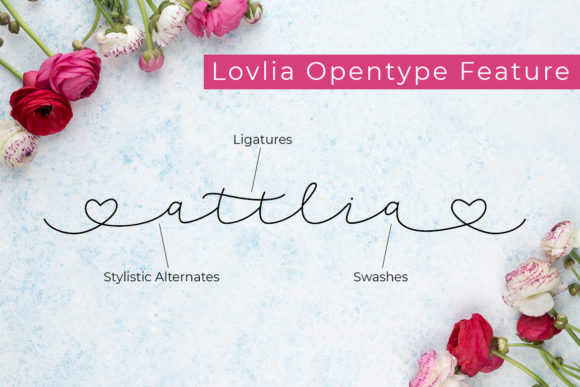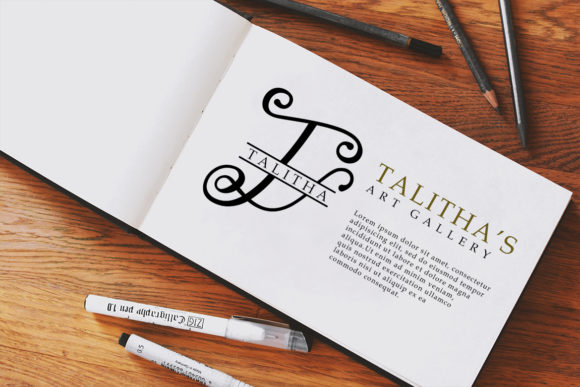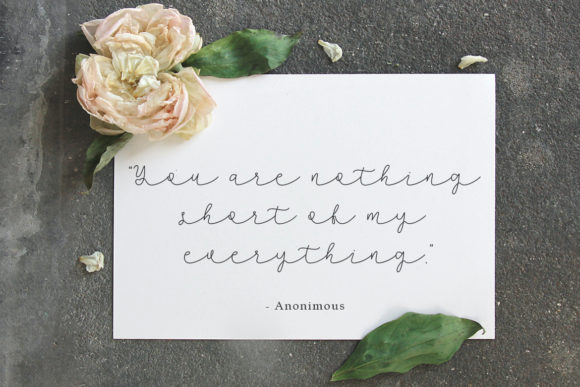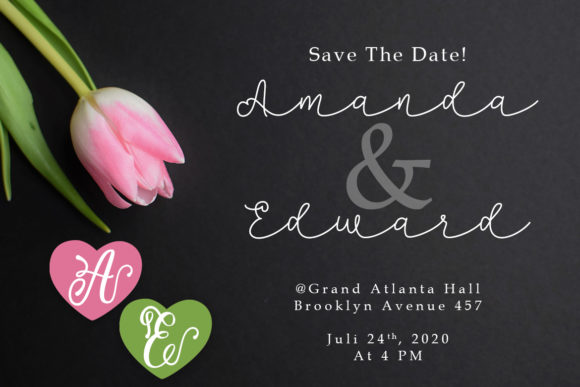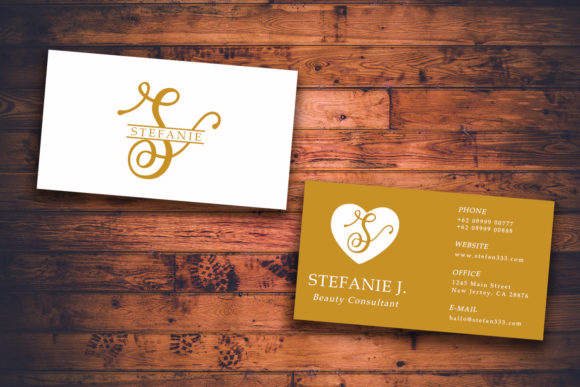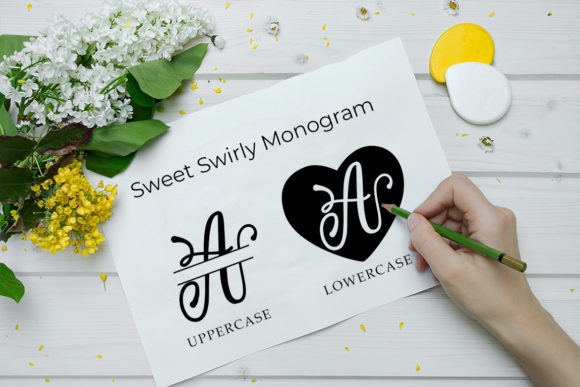
Introduction to Lovlia Font
As designers, we’ve all been there – staring at a blank canvas, waiting for inspiration to strike. It’s those moments of creative desperation that we turn to trusted design resources to spark our imagination. For me, it was the moment I stumbled upon the Lovlia Font – a stunning handwritten duo that left me breathless. The intricate swirls and elegant lines of this font duo instantly transported me to a world of high-end design, where every detail counts.
Whether you’re working on a high-profile project or a personal creative endeavor, the Lovlia Font is an invaluable addition to your design toolkit. With its luxurious feel and versatility, this font is perfect for creating eye-catching social media posts, beautiful stationery art, and gorgeous wedding invitations. And the best part? It’s available for free download, making it an accessible resource for designers of all levels.
With its transparent background and high-quality design, the Lovlia Font is an essential tool for any creative project. So, fall in love with its authentic feel and unlock your full design potential with this incredible font duo.
Key Features of Lovlia Font
- High-quality design resource for creative projects: Lovlia Font is a beautiful, elegant font perfect for various design applications.
- Unique, handwritten style: Lovlia Font features a unique, handwritten design that adds a personal touch to any creative project.
- Perfect for headings and titles: The font is ideal for creating eye-catching headings and titles that grab attention and add visual interest to any design.
Honest Review: Lovlia Font
I recently stumbled upon the Lovlia Font while searching for a design resource for a creative project. I was impressed by the clean and elegant design of this font.
Here are some aspects where the Lovlia Font truly shines:
- ✨ High quality design: The font has a sophisticated and modern look that can elevate any design.
- ✨ Versatility: Lovlia Font is suitable for various creative projects, from logos to brochures.
- ✨ Transparent background: This feature allows for seamless integration into your design.
- ⚠️ Limited font styles: Lovlia Font currently offers a limited range of font styles, which might not cater to all design needs.
- ⚠️ Not ideal for large text: While Lovlia Font looks great for smaller text, it may not be the best choice for larger font sizes.
Overall, I’m impressed with the Lovlia Font, and I would definitely consider using it for future design projects. If you’re looking for a high-quality, free download, I recommend giving it a try.